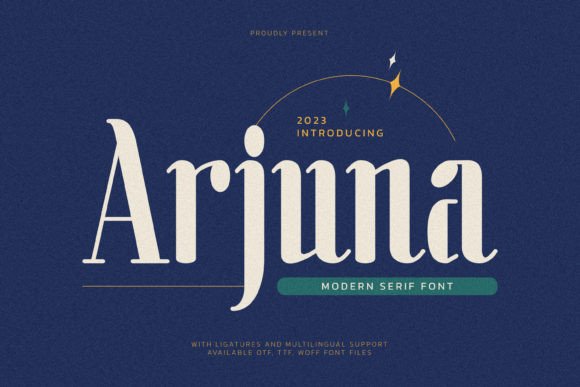
Get ready to make a bold statement with Arjuna Font, the sophisticated and stylish serif font that will transform your designs. Its crisp lines and contemporary flair are a match made in heaven for impactful branding, captivating headlines, and elegant packaging.
Arjuna Font captures the essence of modern elegance, effortlessly complementing both classic and cutting-edge aesthetics. Its versatile nature makes it an indispensable tool for discerning designers, catering to a wide range of design needs. Whether you're crafting eye-catching logos, alluring posters, or simply adding a touch of sophistication to your online presence, Arjuna Font has got you covered.
Let your designs dance with the mesmerizing rhythm of Arjuna Font. Its graceful curves and sharp angles create a visual symphony that will leave an unforgettable impression. Imagine headlines that leap off the page, packaging that demands attention, and branding that exudes an air of timeless sophistication.
Indulge in the world of Arjuna Font, where creativity takes center stage and your designs reach new heights of brilliance. Experience the power of a font that empowers you to express your unique vision with confidence and style.